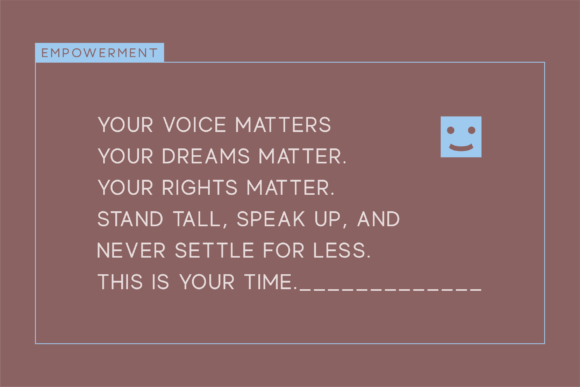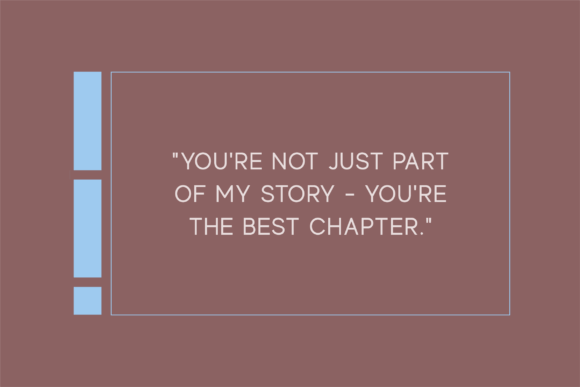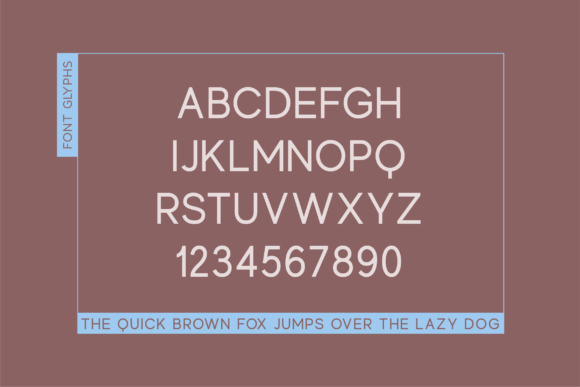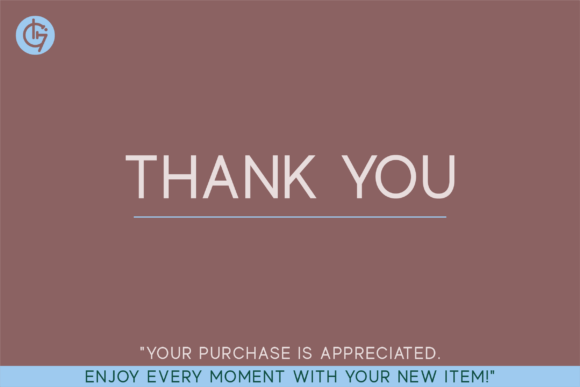
Introduction to Douredha Font
As a designer, you’ve been there – staring at a blank canvas, trying to find the perfect font to elevate your creative project. The search can be overwhelming, with countless options available, but what sets a font apart from the rest? For designers seeking a high-quality design resource that exudes professionalism and impact, look no further than the Douredha Font.
With its modern, all-caps sans serif design, Douredha Font is a game-changer for any project. Its clean lines and minimalist aesthetic make it perfect for branding, logos, and digital design, while its bold, geometric structure ensures versatility and readability. Whether you’re working on a free download or a high-end branding project, Douredha Font is sure to make a statement with its crisp, sharp edges and transparent background.
- High-quality design resource for creative projects, ideal for logos, branding, and graphics.
- Unique, modern design with a transparent background, allowing for seamless integration into any project.
- Supports a wide range of languages, including Latin, Cyrillic, and Greek alphabets.
- Designed to be highly legible and versatile, making it perfect for both digital and print projects.
- Includes a comprehensive character set, including uppercase and lowercase letters, numbers, and punctuation marks.
Honest Review: Douredha Font
As a designer, I’m always on the lookout for high-quality design resources to elevate my creative projects. The Douredha Font caught my eye with its unique and modern aesthetic. I downloaded it for free and was impressed by the transparent background, which made it easy to layer over my designs.
Here are some of the things that work well with the Douredha Font:
- ✨ Unique and modern design style that adds a touch of sophistication to any project
- ✨ High-quality design that prints well and looks great on screen
- ✨ Transparent background makes it easy to layer over other designs
- ⚠️ Limited character set, which may not be suitable for extended texts
- ⚠️ Not as customizable as some other fonts, which may limit its use in certain projects
Overall, I’m impressed with the Douredha Font. While it may not be perfect, it’s a great addition to any designer’s toolkit. Its unique design style and high-quality design make it a great choice for creative projects, and the free download makes it accessible to designers of all levels.
The Douredha Font is a high-quality, free design resource perfect for creative projects that require a unique and elegant touch. Its transparent background makes it versatile for use in various design applications.
Tips for Getting the Most Out of Douredha Font
Experiment with different font sizes, colors, and combinations to create unique and eye-catching designs. Use the font in conjunction with other design elements, such as images and graphics, to add depth and visual interest to your project.
Common Use Cases for Douredha Font
The Douredha Font is suitable for a wide range of creative projects, including business cards, brochures, posters, and social media graphics. Its elegant and sophisticated design makes it perfect for projects that require a touch of sophistication and class.